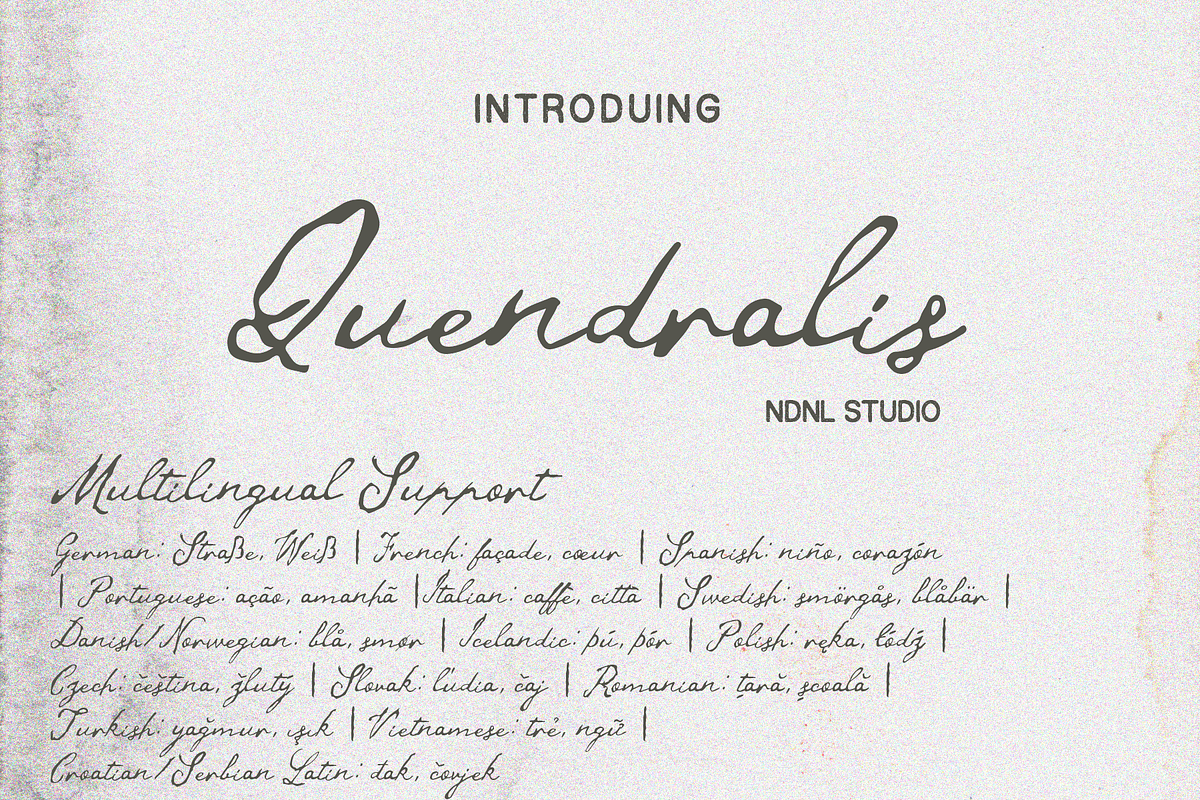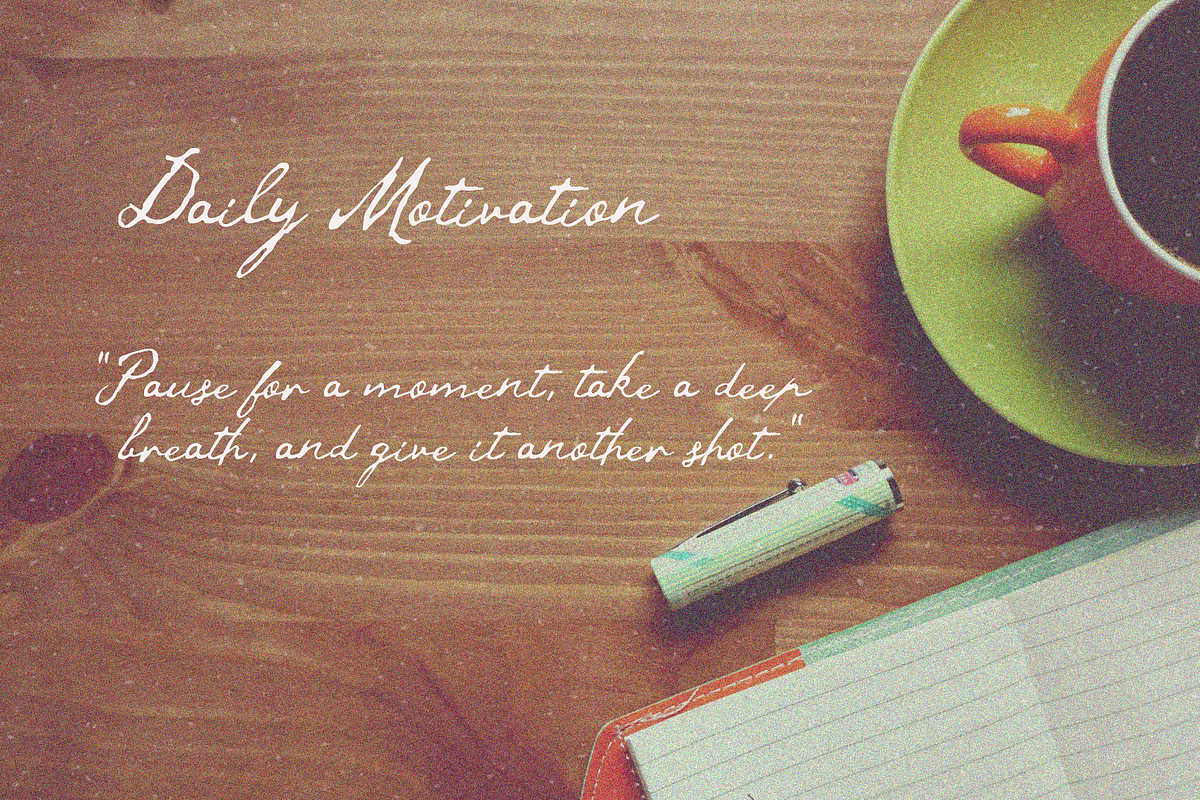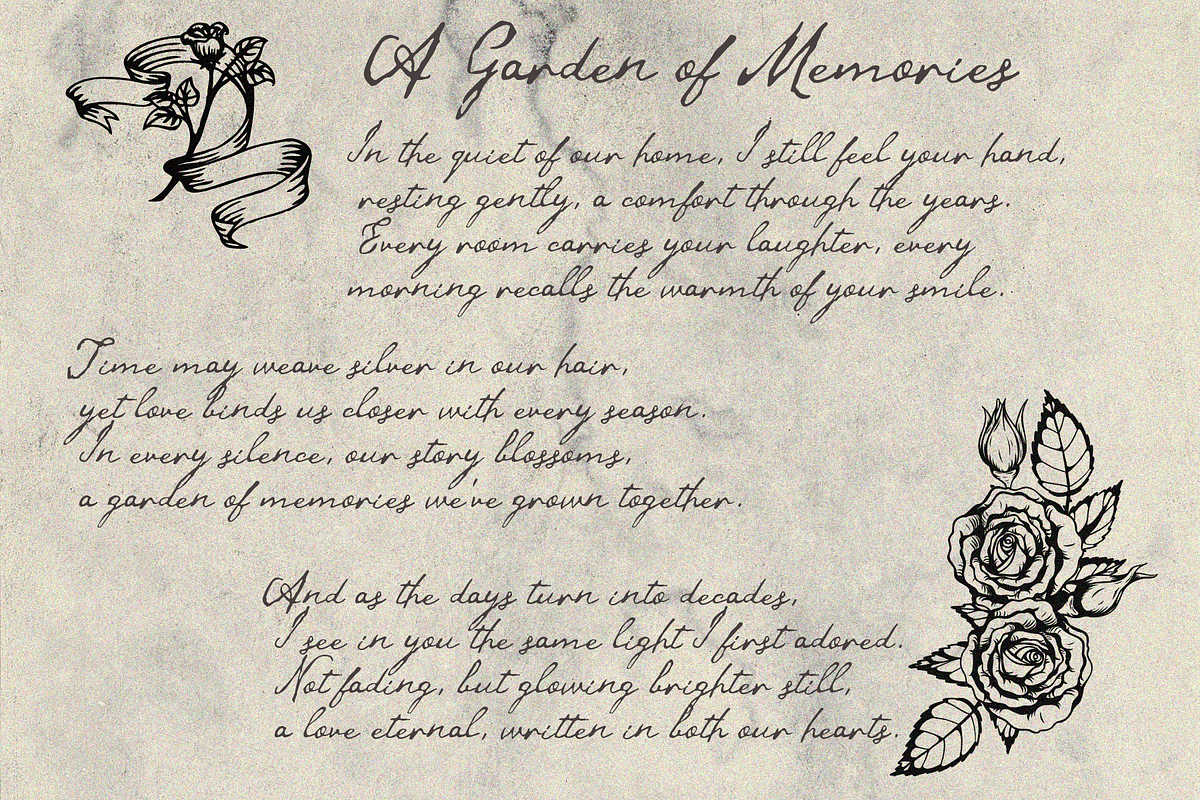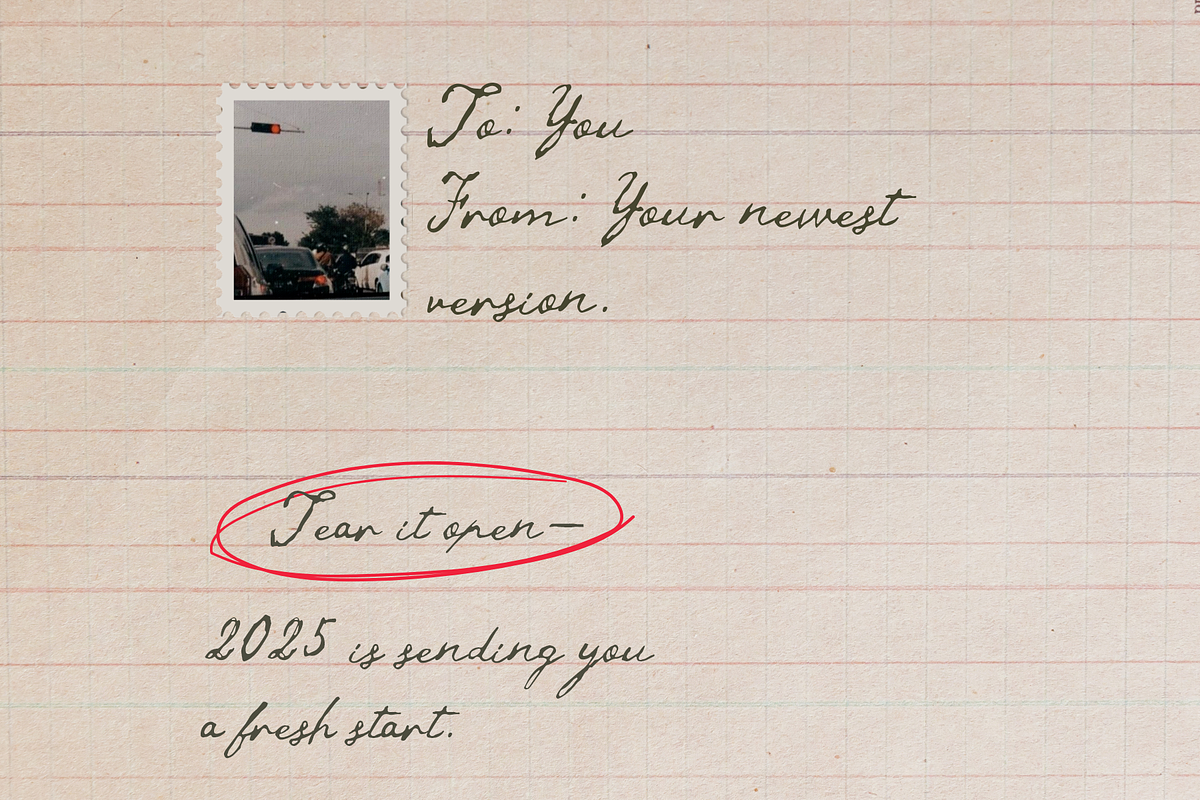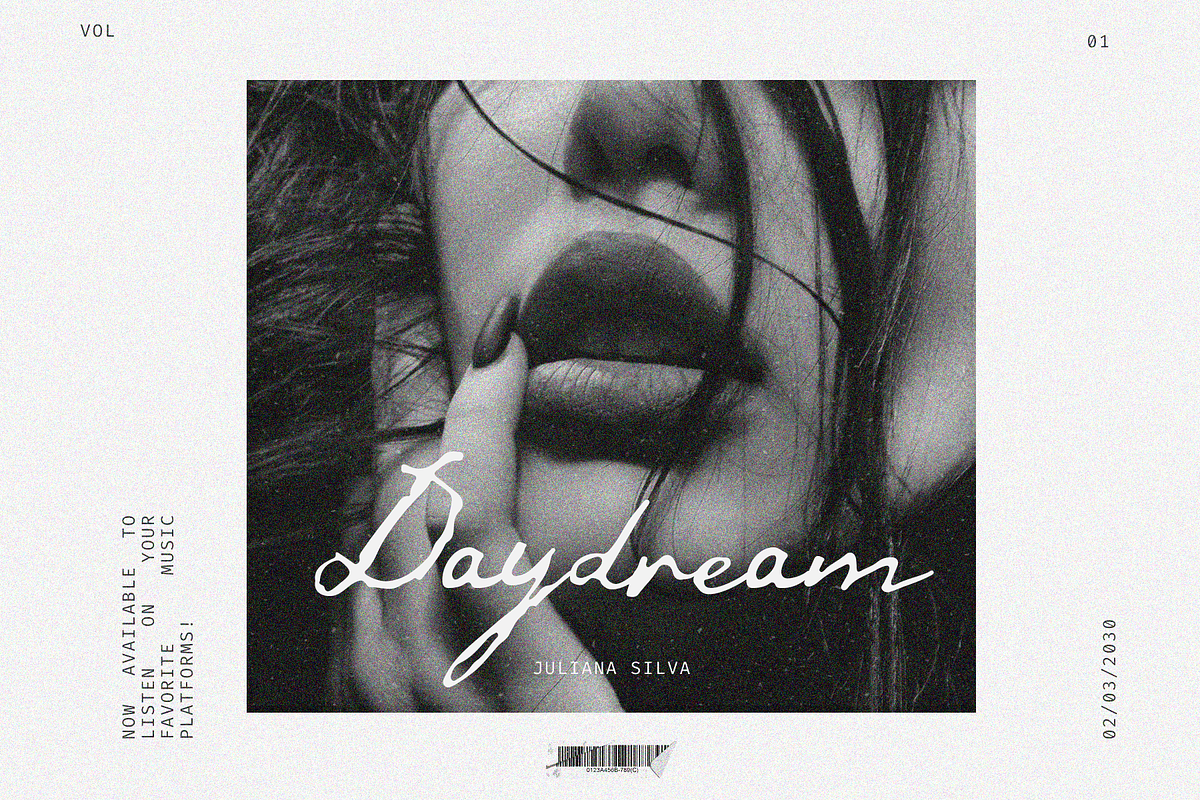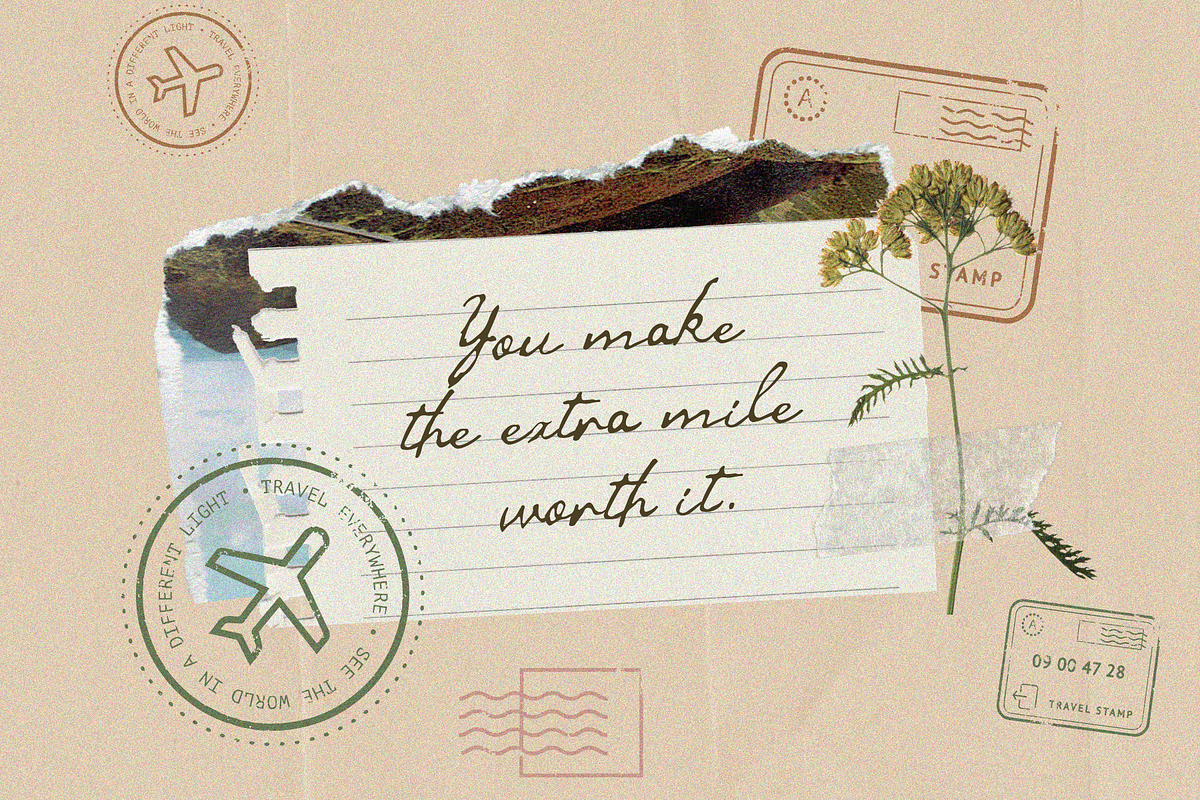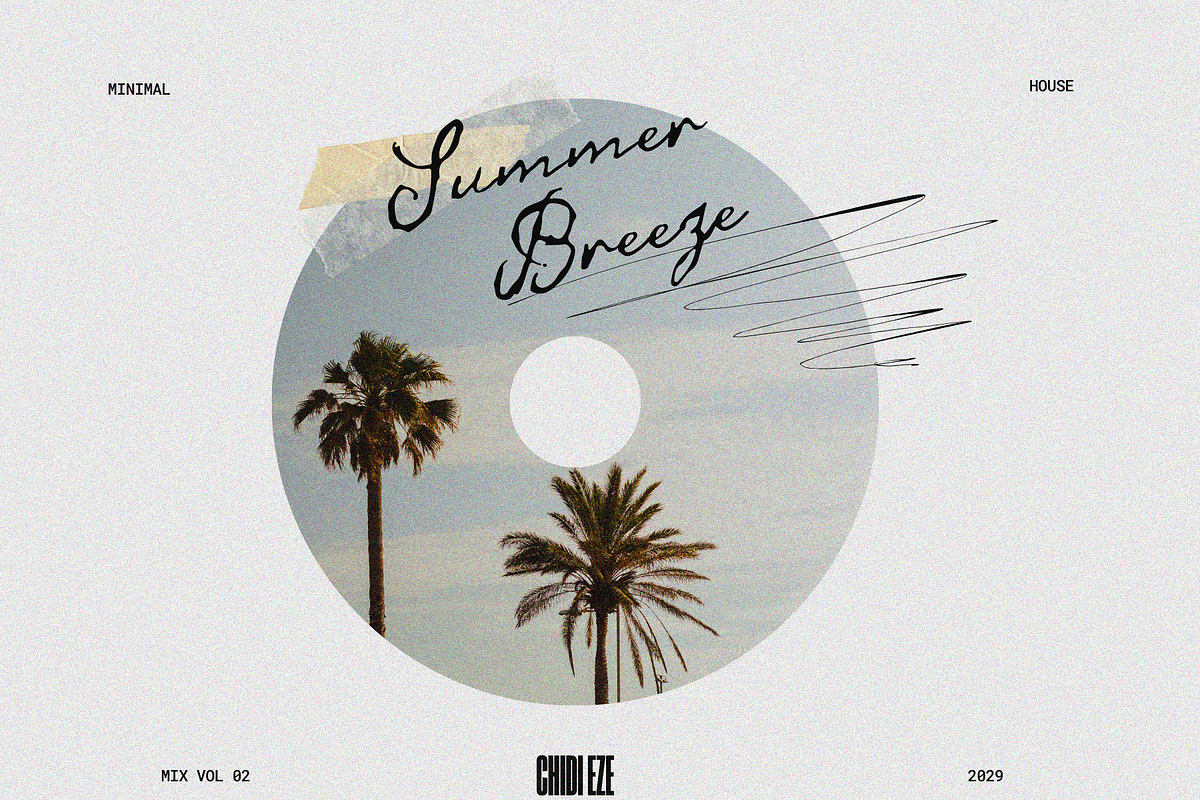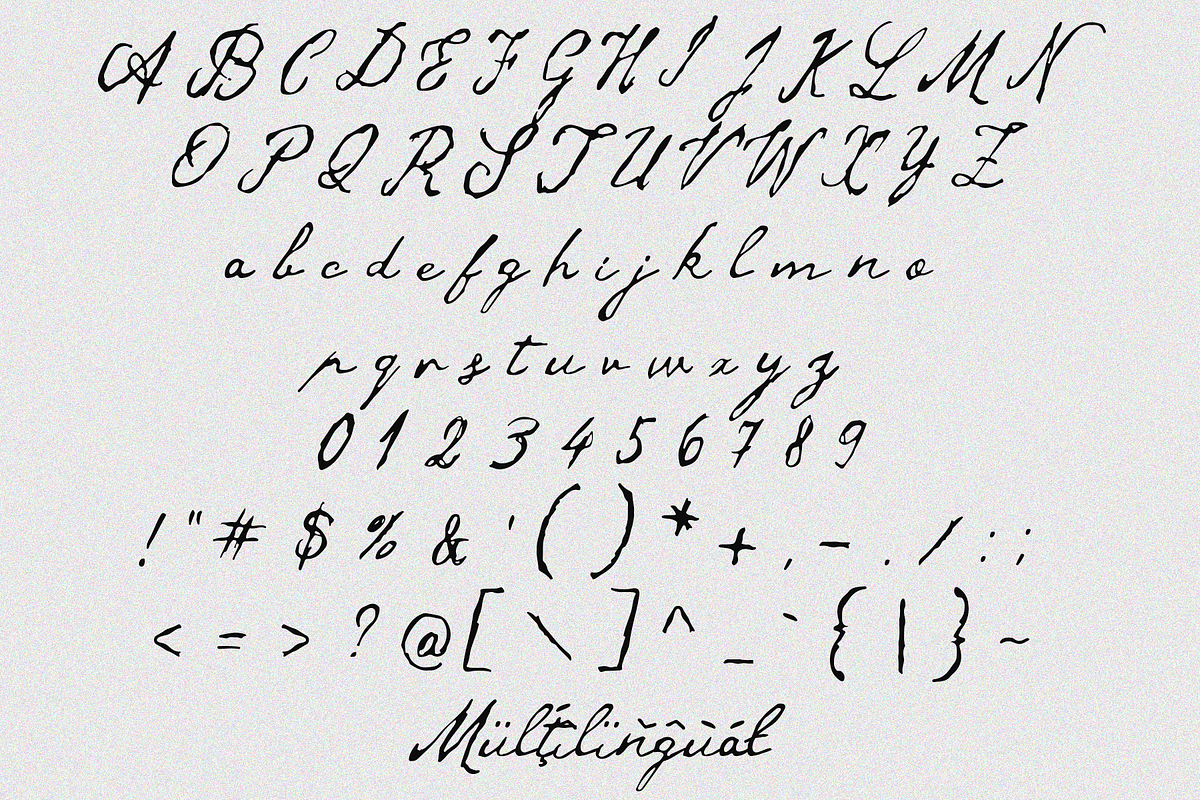
Quendralis – Handwritten Font
Quendralis is a modern script font featuring smooth and refined handwritten strokes, delivering a clean and elegant look. Its balanced design ensures both visual appeal and readability across different uses.
Perfect for logos, branding, wedding invitations, packaging, posters, and social media content. Multilingual support allows flexible use in global design projects.